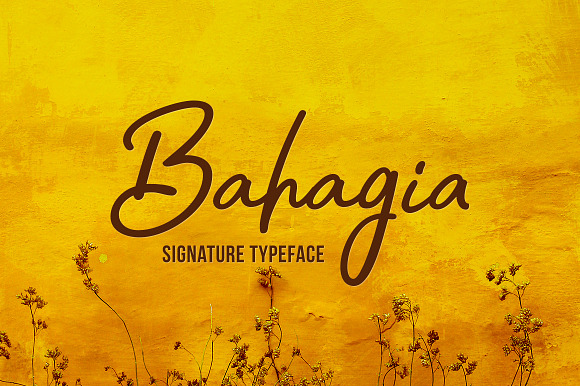
Bahagia Font
Bahagia Font is perfect for happiness coaching services, joyful wellness centers, positive psychology platforms, blissful lifestyle brands, uplifting meditation programs, and celebration event planning companies. Its joyful character makes it ideal for Indonesian cultural organizations, happiness research institutions, positive mental health services, joyful family entertainment, blissful spa retreats, and any project requiring genuine happiness with Indonesian cultural warmth and authentic joy appeal.
This font is exciting because it embodies the pure essence of happiness and contentment while delivering exceptional functionality for organizations dedicated to spreading joy, positive emotions, and the universal human pursuit of genuine happiness and well-being. The blissfully crafted letterforms radiate warmth and genuine joy, creating typography that instantly lifts spirits and resonates with audiences seeking authentic happiness and positive life experiences.
The Bahagia Font family typically includes Light, Regular, Medium, and Bold weights with joyful alternates, happiness-inspired ligatures, and uplifting elements that enhance its blissful personality. This comprehensive collection enables wellness professionals to create uplifting brand systems that maintain authentic joy while offering flexibility for various happiness applications requiring both emotional authenticity and contemporary wellness market positioning.
Whether you're developing identity systems for happiness organizations, creating materials for positive psychology services, or designing promotional content for joyful lifestyle brands, Bahagia Font Free Download delivers the genuine happiness and cultural warmth that connects with audiences seeking authentic joy and positive transformation. Its uplifting presence ensures memorable brand recognition across digital platforms and print materials, making it perfect for websites, mobile applications, and happiness campaigns that celebrate genuine joy, cultural appreciation, and the transformative power of authentic happiness with contemporary wellness standards and genuine blissful appeal.